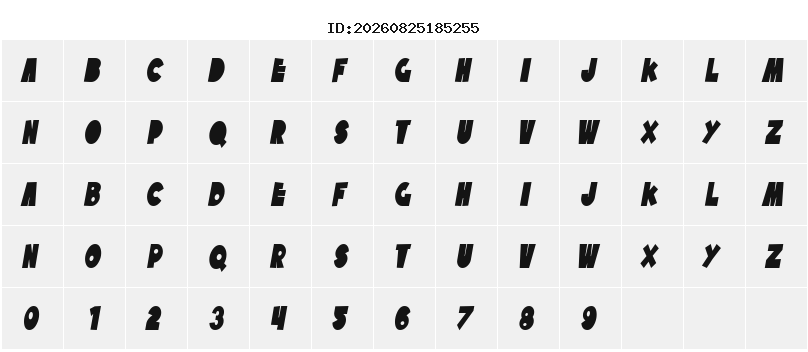
SF Tattle Tales Condensed Preview
• Font Name: SF Tattle Tales Condensed
• Font ID: SF Tattle Tales Condensed Bold Italic
• Full Font Name: SF Tattle Tales Condensed Bold Italic
• PostScript Name: SFTattleTalesCondensedBoldItalic
About SF Tattle Tales Condensed.ttf
SF Tattle Tales Condensed.ttf is a modern, elegant sans-serif font designed for ultimate readability and visual harmony. Perfect for branding, headlines, web design, and print materials.